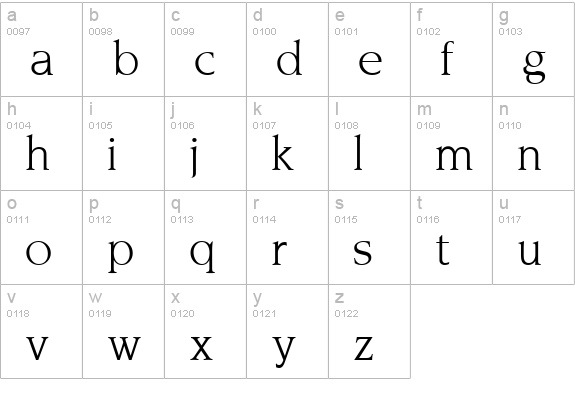
Novarese Regular Font Details
Novarese Regular is the standard, neutral variant in the Novarese typeface family \xE2\x80\x94 well suited to general body text, paragraphs, and standard typographic work.
Novarese Regular font is a timeless and elegant typeface that exudes sophistication and style. Its clean lines and classic proportions make it a versatile choice for a wide range of design projects, from branding to editorial design. The balanced letterforms and subtle serifs give Novarese Regular a sense of refinement and grace, making it a perfect choice for creating a polished and professional look. What sets Novarese Regular font apart is its versatility and readability, making it suitable for both display and text settings. Whether you are designing a logo, a website, or a publication, Novarese Regular will bring a touch of class to your project. Best of all, Novarese Regular font is available for free download at FontsMarket.com. This means you can easily access this premium font without any cost, making it a valuable addition to your font collection. Don't miss out on the opportunity to enhance your designs with the timeless elegance of Novarese Regular font.